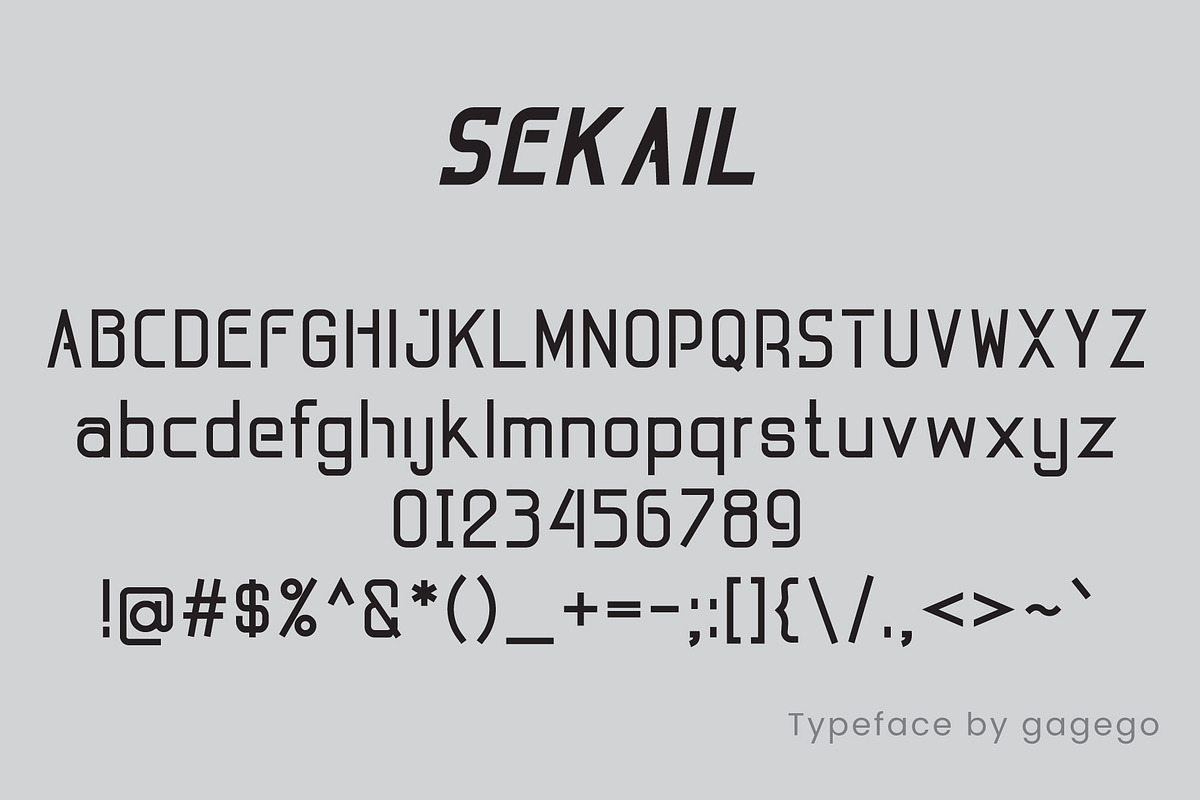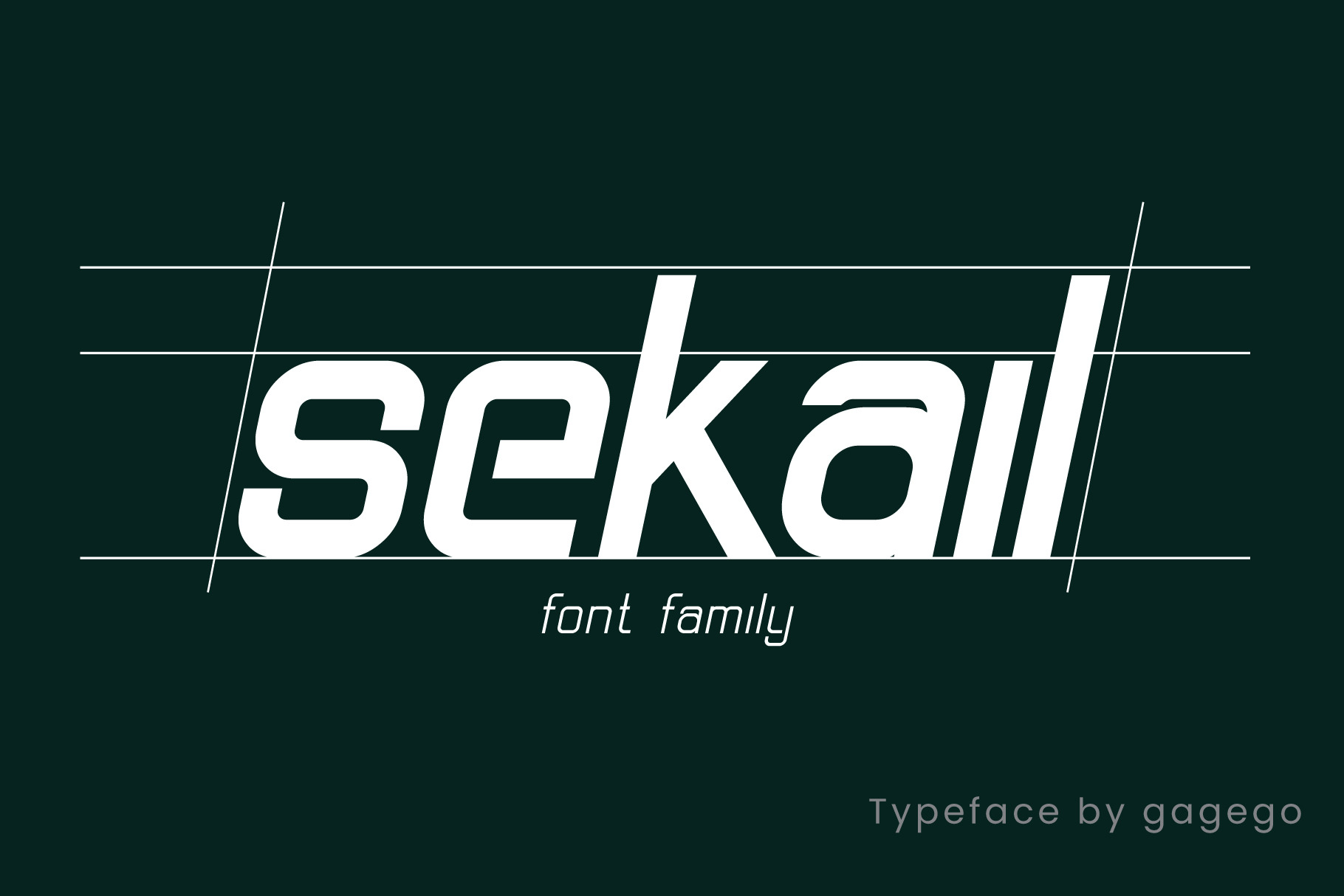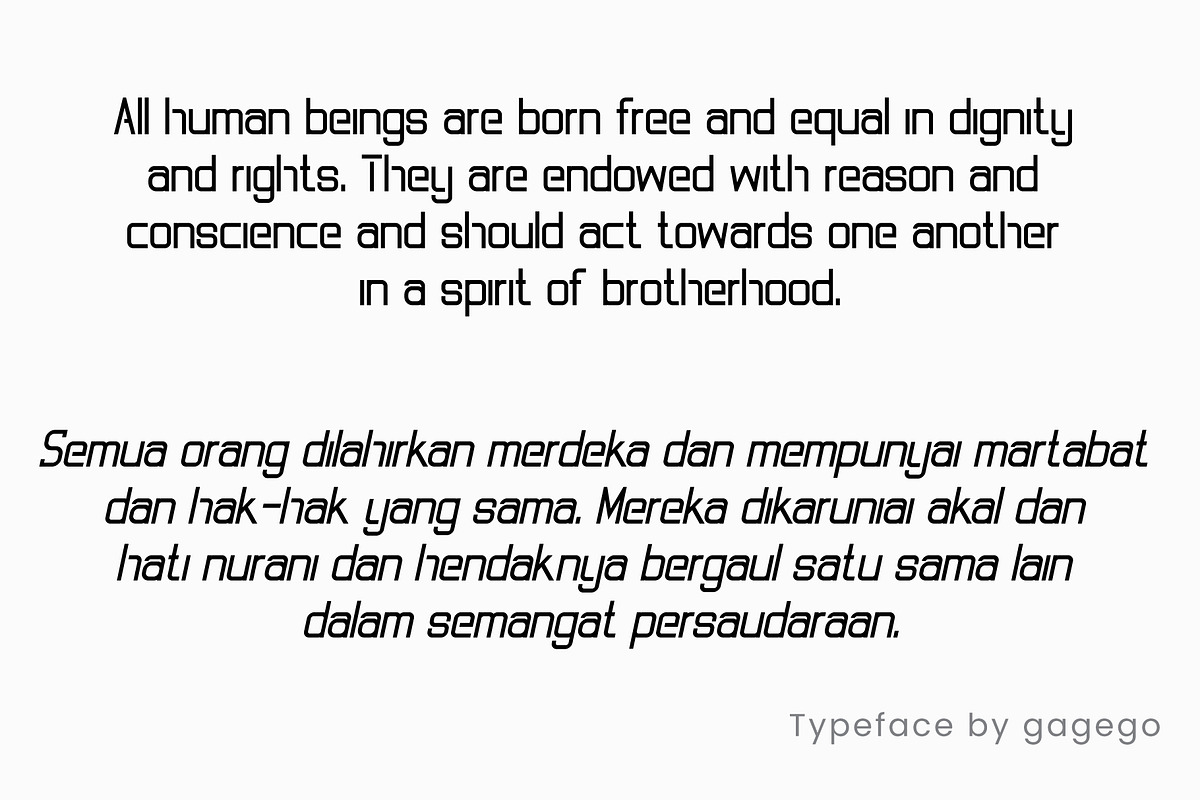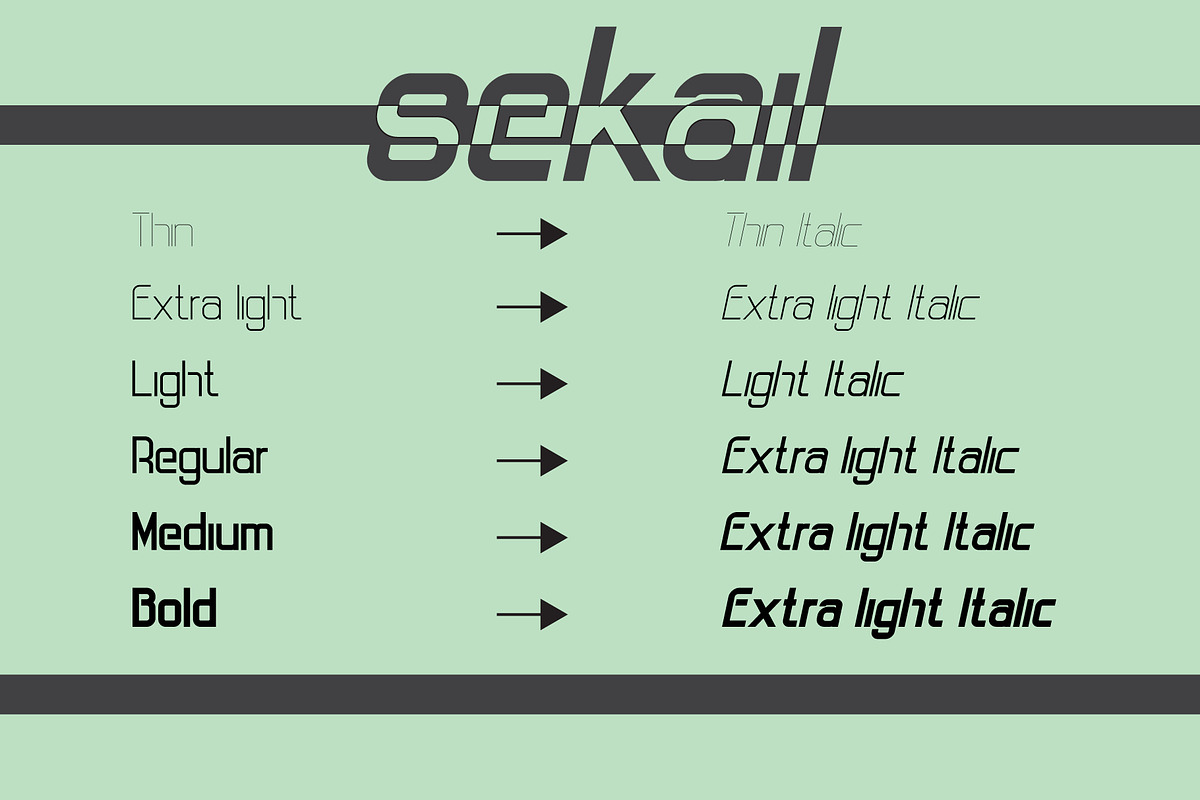
Sekail Font modern
We provide a unique but interesting font, the name of the font is SEKAIL FONT. This font is suitable for creating books or banners and is unique. SEKAIL FONT is available in several font types.
1 regular 2 regular italic 3 thin 4 thin italic 5 bold 6 thick italic 7 extra mild 8 extra mild italic 9 light 10 light italic 11 medium 12 medium italic